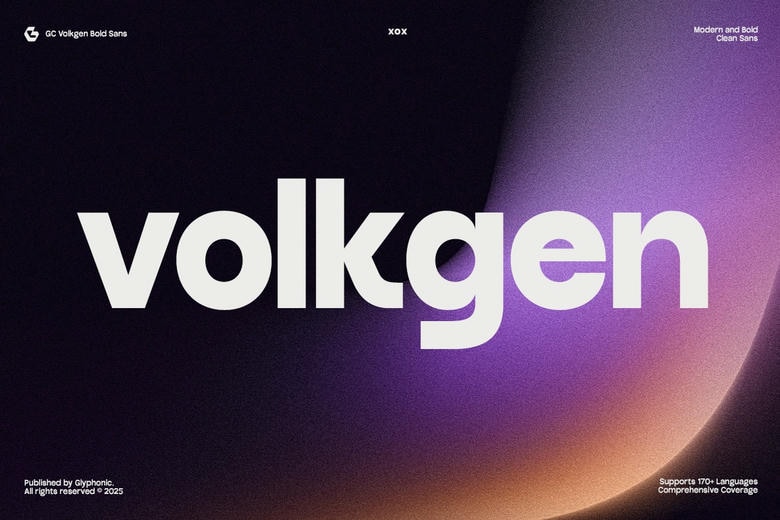
GC Volkgen Font
GC Volkgen is a contemporary sans serif typeface combining clean edges with dominance. Rested upon clean geometrical grounds and supported by robust strokes, it exudes confidence and adaptability both on the digital and print medium. Finding the balance between accuracy and character, it is best suited to branding, editorial design, technology-driven projects, and powerful visual identities.
Having perfect proportions and elegant details, GC Volkgen changes easily without losing the unique voice. Bold headlines, smooth interfaces, minimalistic layouts, and the overall effect of this font instills power, readability, and contemporary style to any typographic piece.